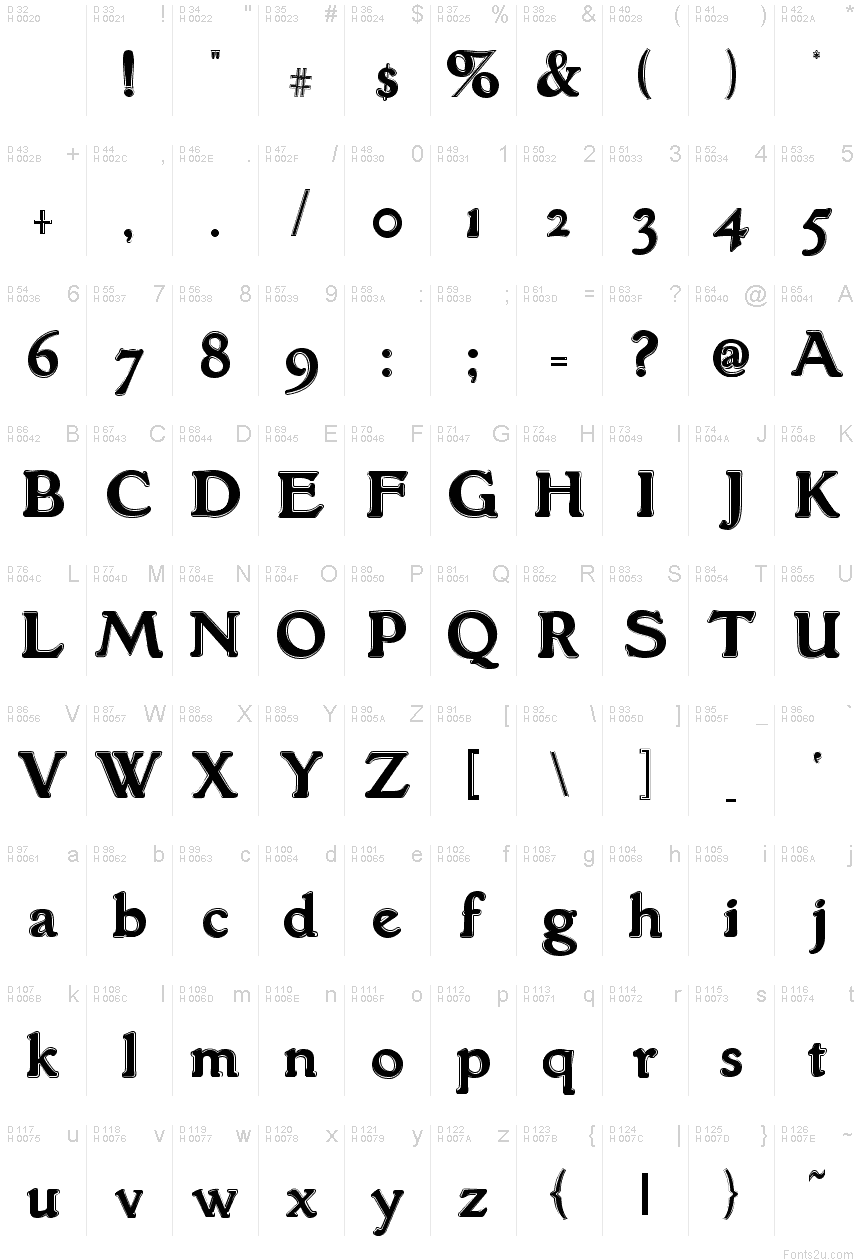
GranthamOutline
Grantham Outline font by PJL is a free retro serif typeface with a bold, inky outline that feels straight off a mid‑century storefront sign. Thick, rounded strokes are wrapped in a crisp contour, creating a double-layered effect that pops without feeling gimmicky. Those generous curves and steady spacing give it a friendly, substantial presence that holds up at large sizes.
Using Grantham Outline, titles instantly pick up a nostalgic, hand-painted charm that works beautifully for vintage posters, café signage, book covers, packaging, event flyers, and characterful logos. The outlined weight gives you space to play with color fills, gradients, or textures for extra punch. For supporting text, pair this free font with a clean geometric sans at smaller sizes to keep layouts readable while GranthamOutline does the show-stealing work up top.